Luxury branding is all about sophistication, elegance, and exclusivity. And when it comes to creating visually stunning designs that exude a sense of luxury, the Gucci font is a go-to choice for many designers. In this article, we will show you how to elevate your designs by incorporating the iconic Gucci font into your Canva projects. Whether you’re looking to elevate your social media posts, website banners, or marketing materials, mastering the art of using the Gucci font in Canva will take your branding to the next level. Let’s dive in and unlock the secrets to creating truly elegant designs with the Gucci font.
Introduction: Understanding the Importance of Luxury Branding
Luxury branding plays a crucial role in the world of marketing and consumer behavior. It goes beyond just a label or a name, it represents a lifestyle, an identity, and a symbol of exclusivity that speaks to a specific target audience. Understanding the importance of luxury branding goes hand in hand with recognizing the value it brings to businesses, consumers, and the overall market.
Luxury brands evoke emotions and aspirations in consumers, creating a sense of desire and prestige. Their products are not just items for purchase, but rather a statement of social status and refinement. By investing in luxury branding, companies are able to differentiate themselves in a competitive market, build strong brand loyalty, and command premium pricing. Emphasizing quality, craftsmanship, and attention to detail, luxury brands set themselves apart as symbols of excellence and sophistication.
Exploring the Versatility of the Gucci Font in Canva Designs
When it comes to creating captivating designs in Canva, the Gucci font offers a wide range of versatility that can elevate your projects to the next level. With its sleek and stylish aesthetic, this iconic font can be used in a variety of ways to enhance the visual appeal of your designs.
Whether you’re designing a poster, social media graphic, or even a business card, the Gucci font can add a touch of luxury and sophistication. From bold headlines to elegant typography, this font can be customized to suit any style or theme, making it the perfect choice for anyone looking to make a statement with their designs.
Tips for Incorporating the Gucci Font for a Sophisticated Look
When using the Gucci font to achieve a sophisticated look, it’s essential to consider the design elements and placement to ensure a visually appealing outcome. Opting for a sleek and modern design can elevate the overall aesthetic of your project. Experiment with different font weights and sizes to create a dynamic and eye-catching composition.
Incorporating the Gucci font in a subtle and understated manner can add a touch of elegance to any design. Consider pairing the font with complementary colors and minimalist graphics to enhance the sophistication of your project. Incorporating the font in headers and titles can help draw attention to key elements while maintaining a cohesive and polished look. Experiment with spacing and alignment to create a balanced and visually pleasing layout.
Utilizing Color Theory to Enhance Your Gucci Font Designs
Color theory plays a crucial role in designing captivating Gucci fonts that stand out. By understanding how different colors complement each other, you can create visually appealing designs that make a statement. When selecting colors for your Gucci font designs, consider the emotions and message you want to convey. Utilizing a combination of bold and vibrant colors can evoke a sense of luxury and sophistication, while softer pastel tones can create a more playful and whimsical vibe.
Incorporating contrast in your color choices can add dimension and interest to your Gucci font designs. Pairing complementary colors such as red and green or blue and orange can create a striking visual impact. Additionally, consider the psychological effects of colors on the viewer. For example, using warm tones like red and orange can create a sense of energy and excitement, while cool tones such as blue and green can evoke feelings of calmness and serenity. Experimenting with different color combinations can help you find the perfect balance to enhance your Gucci font designs.
Creating Consistent Branding with the Gucci Font in Canva
Using the Gucci Font in Canva
If you’re looking to create consistent branding for your designs, incorporating the Gucci font in Canva is a great way to achieve a high-end and luxurious look. The Gucci font is instantly recognizable and can help elevate the overall aesthetic of your designs. By using this iconic font, you can easily establish a strong visual identity for your brand and make your designs stand out.
With Canva’s user-friendly interface, it’s easy to add the Gucci font to your designs and customize it to suit your brand’s style. You can use the font in various ways, such as for logos, social media graphics, website banners, and more. By consistently using the Gucci font across all your designs, you can create a cohesive and professional brand image that resonates with your target audience.
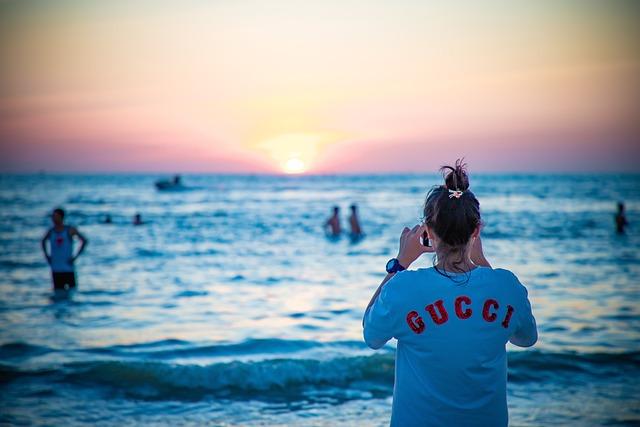
Showcasing Elegance and Style in Your Designs with the Gucci Font
When it comes to elevating your designs to the next level of elegance and style, the Gucci font stands out as a timeless choice that exudes sophistication. With its sleek lines and graceful curves, this iconic font instantly adds a touch of luxury to any project.
Incorporating the Gucci font into your designs allows you to create a sense of exclusivity and refinement that will captivate your audience. Whether you’re designing a sleek logo, chic branding materials, or a stylish website, the Gucci font will help you achieve a high-end look that is sure to impress. Plus, with its versatility and timeless appeal, this font is perfect for a wide range of design projects, from fashion and beauty to luxury lifestyle brands.
Final Thoughts: Elevating Your Brand with the Gucci Font in Canva
Utilizing the iconic Gucci font in Canva can truly elevate your brand and make your designs stand out from the crowd. The sleek and sophisticated look of the Gucci font instantly adds a touch of luxury and style to any design, making it perfect for fashion, beauty, or lifestyle brands looking to make a statement.
By incorporating the Gucci font into your designs, you can create a cohesive and visually appealing brand identity that will resonate with your audience. Whether you’re creating social media graphics, website headers, or promotional materials, the Gucci font in Canva is sure to help you make a lasting impression and leave a mark in the minds of your customers.
Q: What is the Gucci font and why is it so popular in luxury branding?
A: The Gucci font is a custom-designed, elegant typeface used by the high-end fashion brand Gucci. It is popular in luxury branding because of its sophisticated and exclusive look, which conveys a sense of luxury and exclusivity.
Q: How can I use the Gucci font in my designs on Canva?
A: You can use the Gucci font in Canva by uploading the font files to your Canva account and then selecting the font when creating your designs. You can also find similar fonts in Canva’s font library to achieve a similar luxurious look.
Q: Are there any tips for using the Gucci font effectively in my designs?
A: Yes, when using the Gucci font in your designs, make sure to pair it with sleek and modern design elements to create a cohesive and elegant look. Avoid using too many different fonts or cluttering your design with too many elements to let the Gucci font shine.
Q: Can I legally use the Gucci font in my designs for commercial purposes?
A: No, the Gucci font is a copyrighted font that is exclusive to the Gucci brand. It is not available for commercial use, so it’s best to use similar fonts or create your own unique design to avoid any legal issues.
Q: Where can I find more resources for creating luxury designs using the Gucci font?
A: You can find inspiration and resources for creating luxury designs using the Gucci font by studying Gucci’s branding and design elements, as well as researching other luxury brands for ideas. Additionally, you can explore design tutorials and courses that focus on luxury branding for more guidance.
Insights and Conclusions
In conclusion, using the Gucci font in Canva can elevate your designs and add a touch of luxury and elegance to your brand. Unlock the power of luxury branding today!